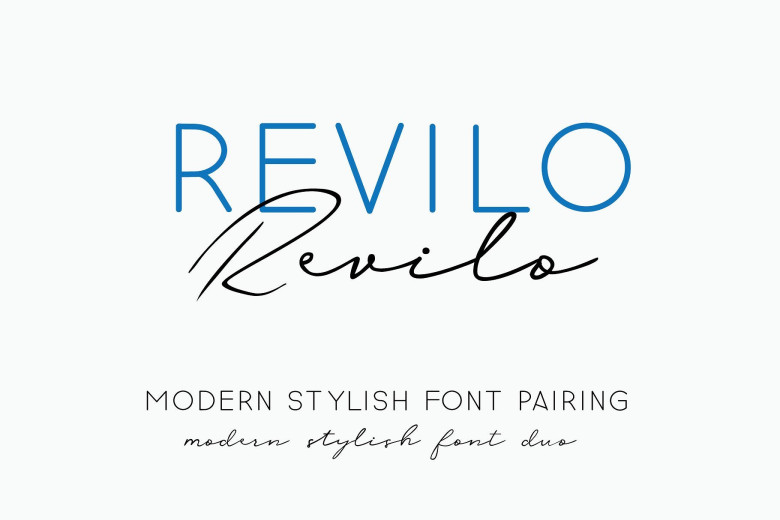
Revilo San Typeface
A modern stylish font pairing. Introducing Revilo Font. This is a modern thin san serif. It is designed and shared by GIT . Revilo is a modern and stylish, contemporary pair of script and san serif.modern san serif and a stylish flowing, unique script companion, revilo offers beautiful typographic pairing for a diversity of design projects, including logos & branding, wedding designs, social media posts, advertisements & product designs. etc